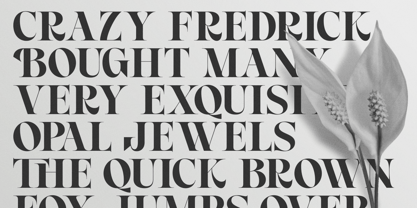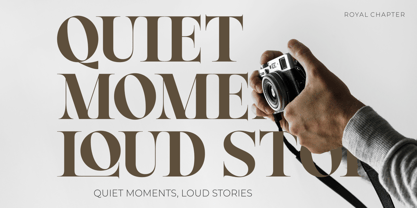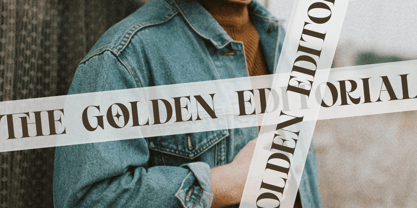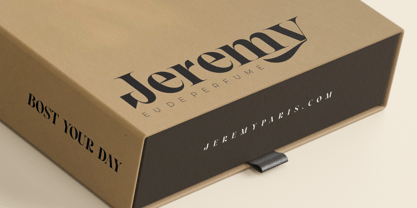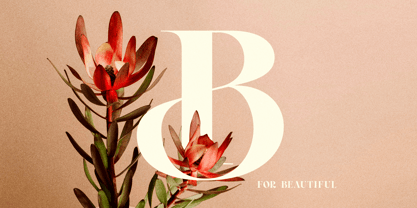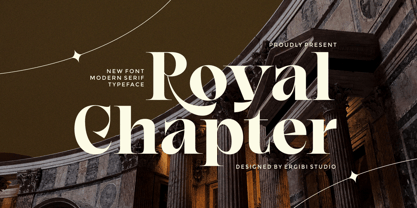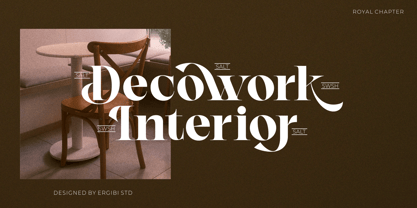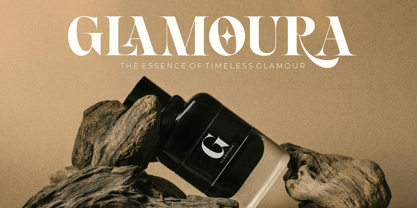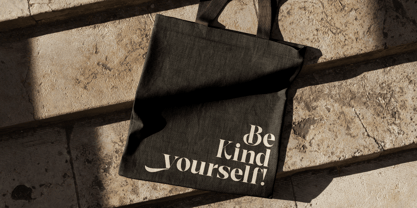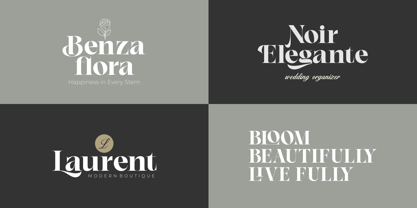
Royal Chapter
by Ergibi Studio
The Royal Chapter Font Family was designed by Riyadh Rahman and published by Ergibi Studio. Royal Chapter contains 1 styles. More about this family
Royal Chapter is a modern serif font that embodies timeless elegance and refined sophistication. With its sharp serifs, balanced proportions, and contemporary flair, this typeface is perfect for high-end branding, editorial designs, luxury packaging, and classy invitations. Royal Chapter brings a harmonious blend of tradition and modernity, making every word you type feel regal and distinguished.
Designers: Riyadh Rahman
Foundry: Ergibi Studio